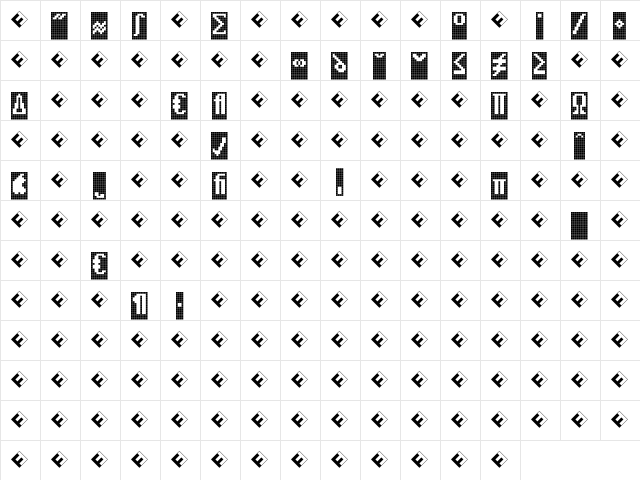
CallFiveL-NegativExp Regular
Design Context for CallFiveL-NegativExp Typeface
CallFiveL-NegativExp is a composed and adaptable typeface that performs quietly and consistently across a wide range of design contexts.